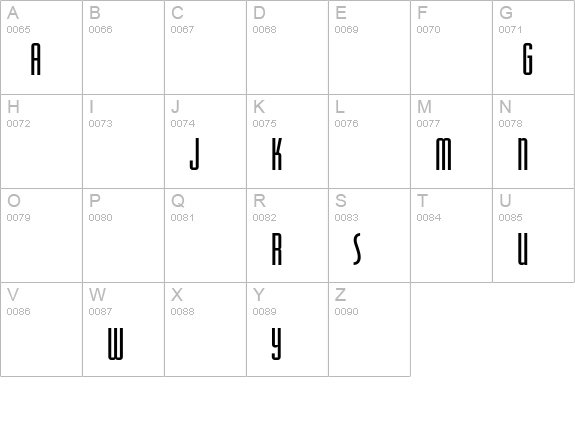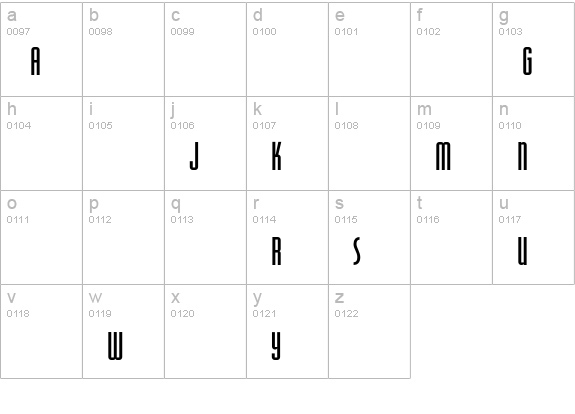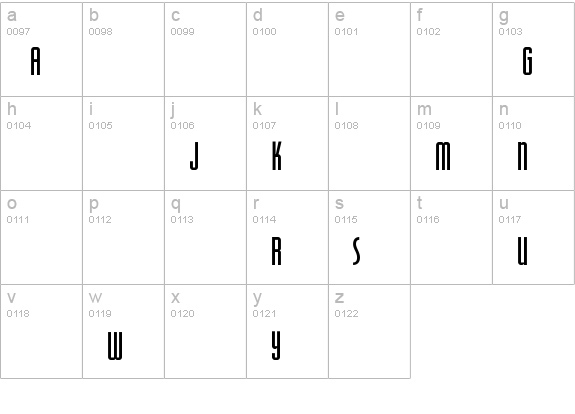
OdeonCondensedAlternate Font Details
OdeonCondensedAlternate font is a sleek and modern typeface that exudes sophistication and elegance. Its condensed style gives a refined and polished look to any design project. The tall, slender letterforms of OdeonCondensedAlternate make it perfect for headlines, logos, and other display purposes where a touch of class is desired. What sets OdeonCondensedAlternate apart is that it is not only stylish and versatile, but also completely free to download. You can get your hands on this elegant font at FontsMarket.com without spending a dime. This makes it an excellent choice for designers and creatives looking to add a touch of luxury to their work without breaking the bank. Don't miss out on the opportunity to elevate your designs with OdeonCondensedAlternate - download it for free today!